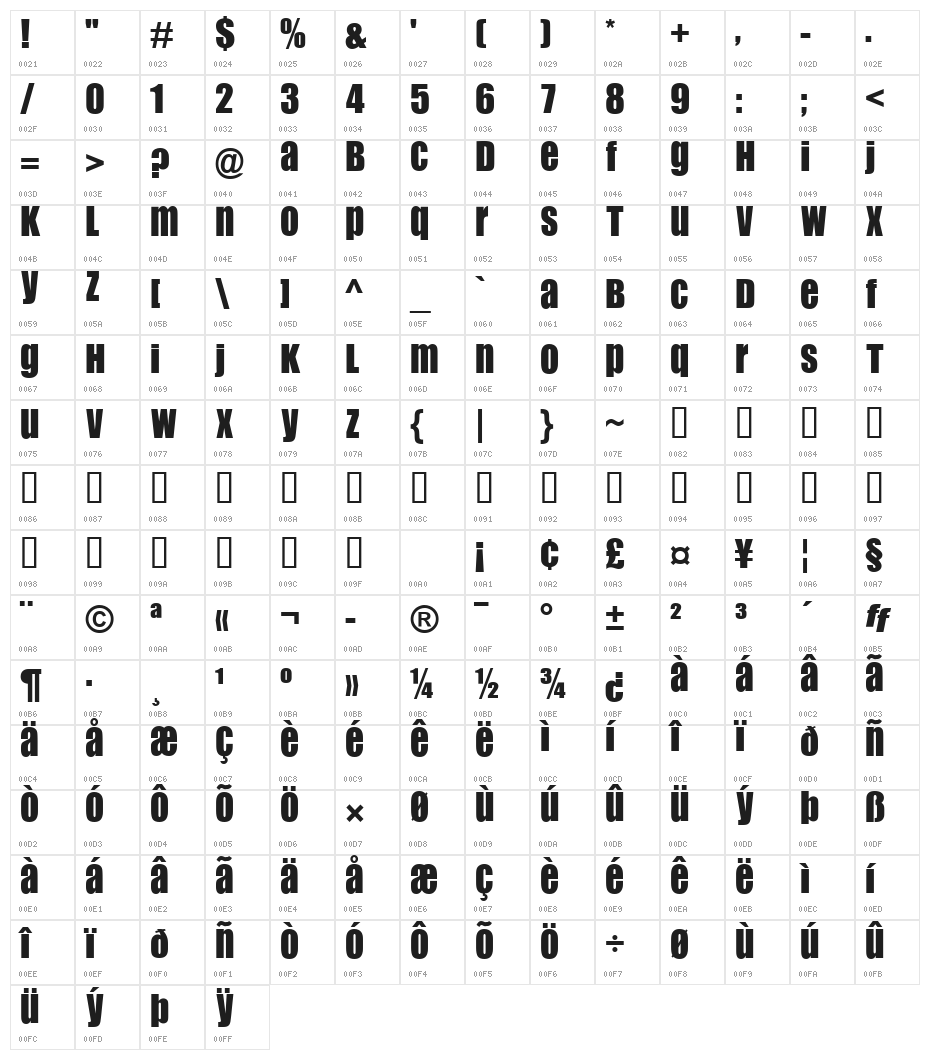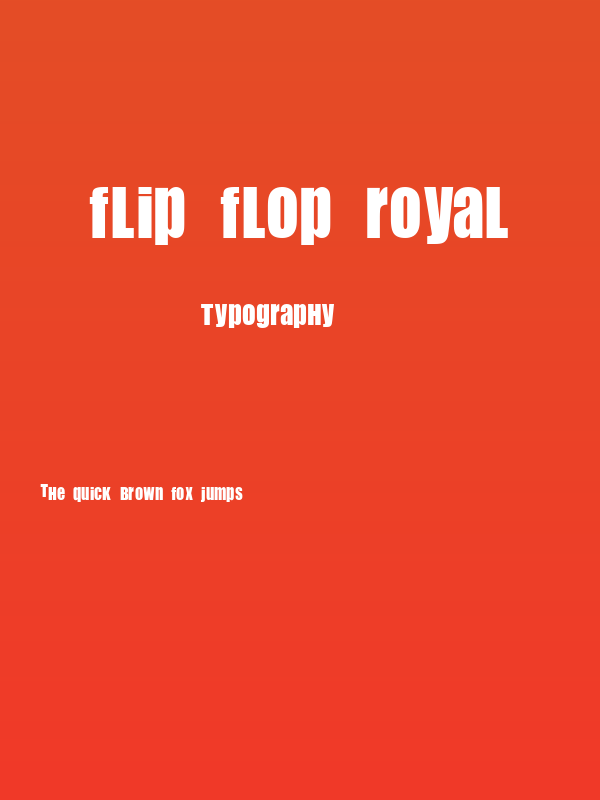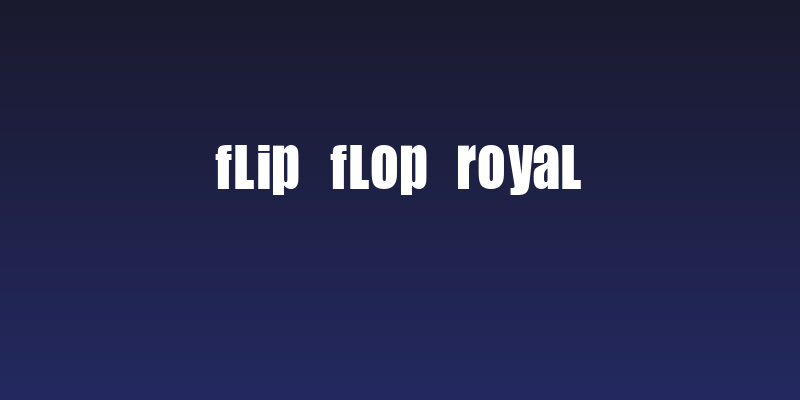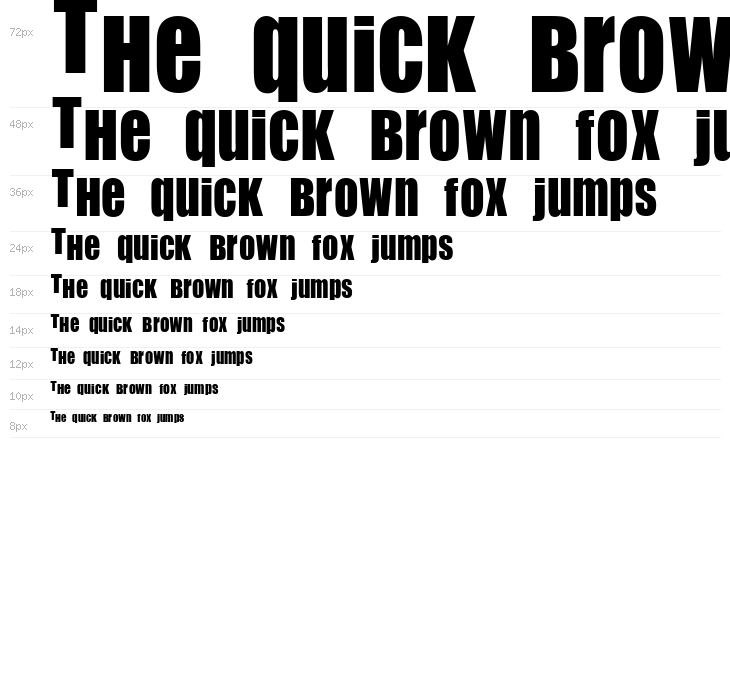
Flip Flop Royal Font
Flip Flop Royal Description
This bold and impactful font features thick, uniform strokes that create a strong visual presence. The characters are designed with a modern, sans-serif style, emphasizing clarity and readability. The uppercase and lowercase letters maintain a consistent height, contributing to a cohesive look. The numerals are equally bold, ensuring they stand out in any context. Special characters are included, matching the robust style of the alphabet. This font is ideal for making a statement, with its high contrast and solid structure.
| Proposed Projects | Ideal for headlines, posters, branding, and any project requiring a bold statement. |